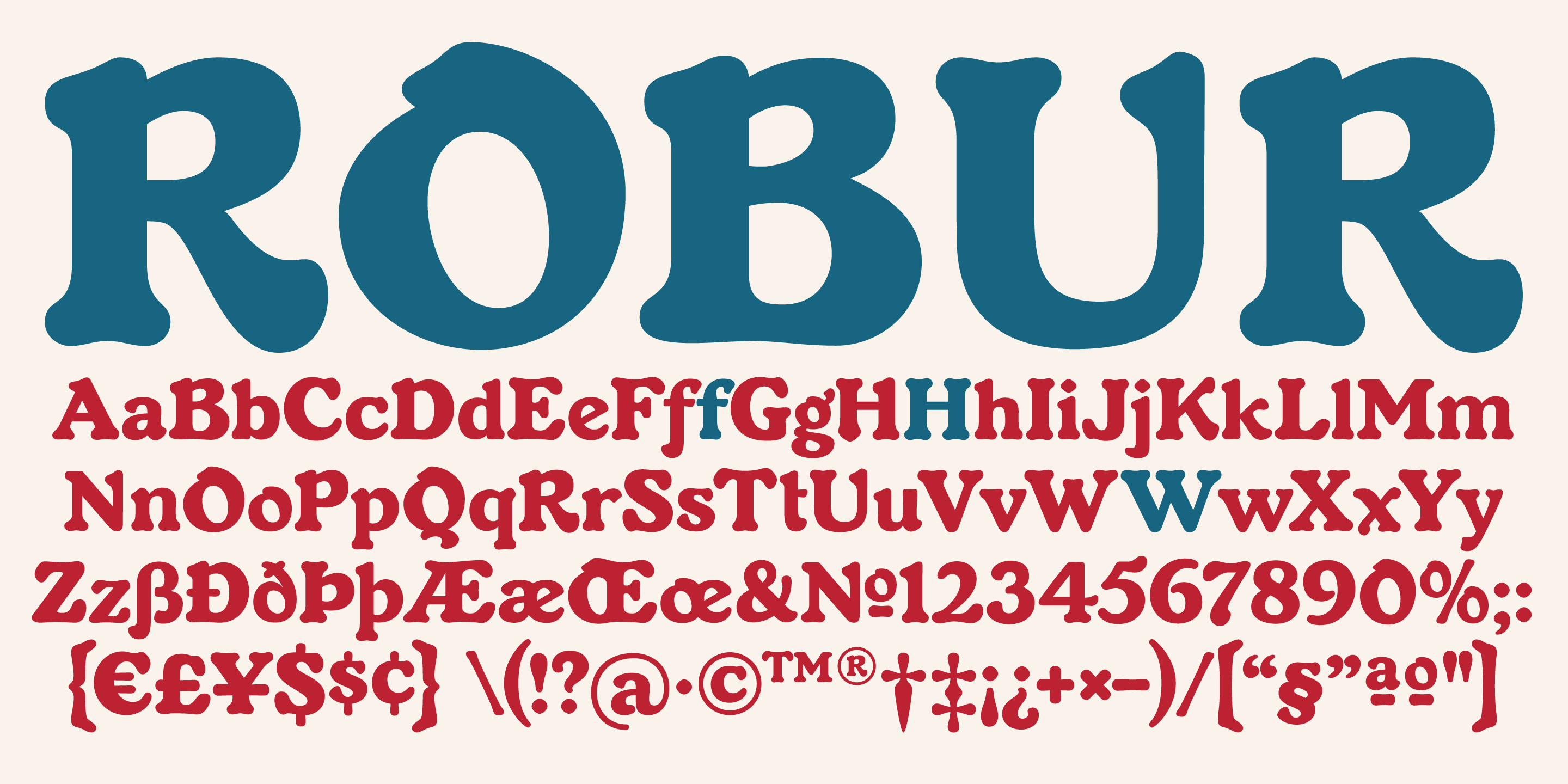
Robur Font is ideal for outdoor adventure gear branding, hiking equipment packaging, mountain climbing expedition logos, wilderness survival guides, forestry company materials, national park signage, camping gear advertisements, and rugged outdoor apparel designs. This powerful typeface works perfectly in adventure tourism promotions, off-road vehicle branding, outdoor sports magazines, and expedition documentary titles.
What makes Robur Font exciting is its unwavering strength and natural resilience that captures the robust spirit of outdoor adventures and wilderness exploration. The font features solid letterforms, stable proportions, and enduring character that evokes the reliability of oak trees and the durability of mountain stone. Its steadfast nature and outdoor authenticity make every word feel built to withstand any challenge.
Robur Font family includes various rugged styles: Regular, Bold, Light, Condensed, Extended, and Heavy variations. Each style maintains the font's signature outdoor durability while providing designers with comprehensive options for creating adventure brand identities and wilderness typography that appeals to outdoor enthusiasts and nature lovers seeking authentic expedition experiences.
Adventure brands choose Robur Font Free Download for projects requiring outdoor credibility and wilderness appeal. The font's versatility makes it suitable for both modern adventure gear marketing and traditional outdoor equipment catalogs, ensuring robust results across expedition websites, gear packaging, and outdoor recreation materials.